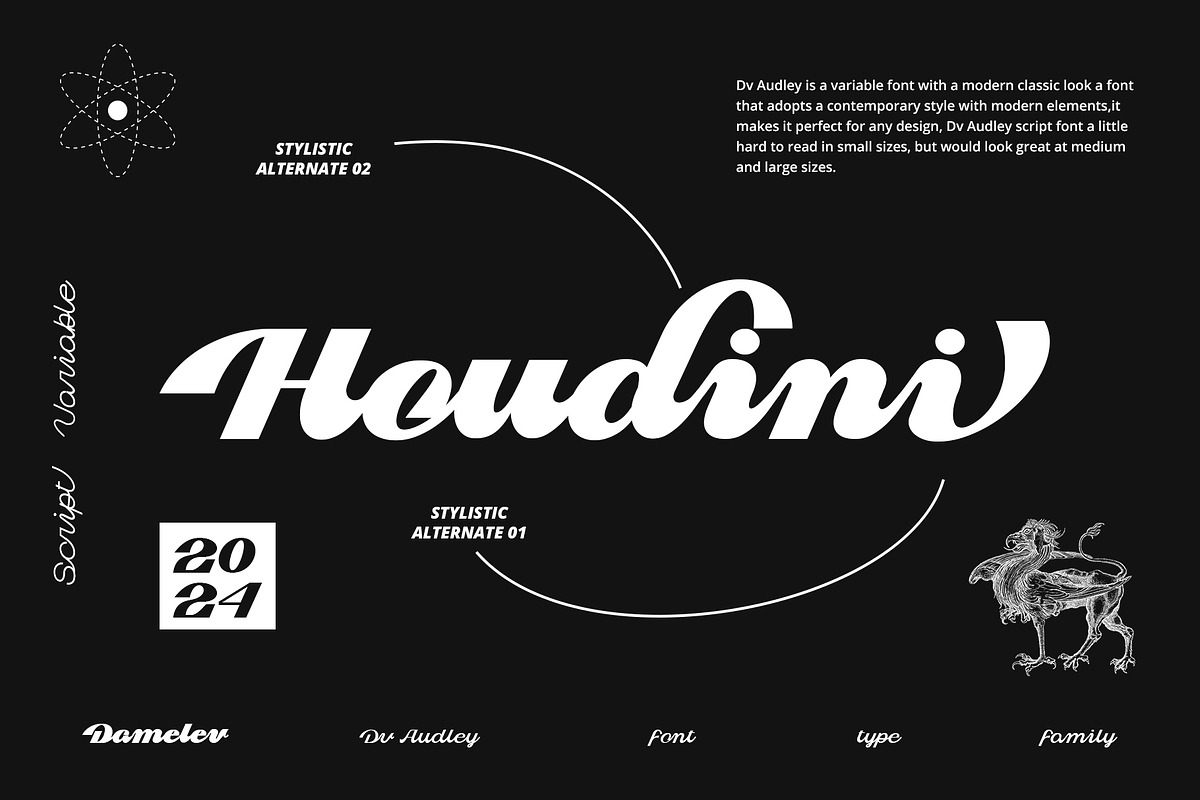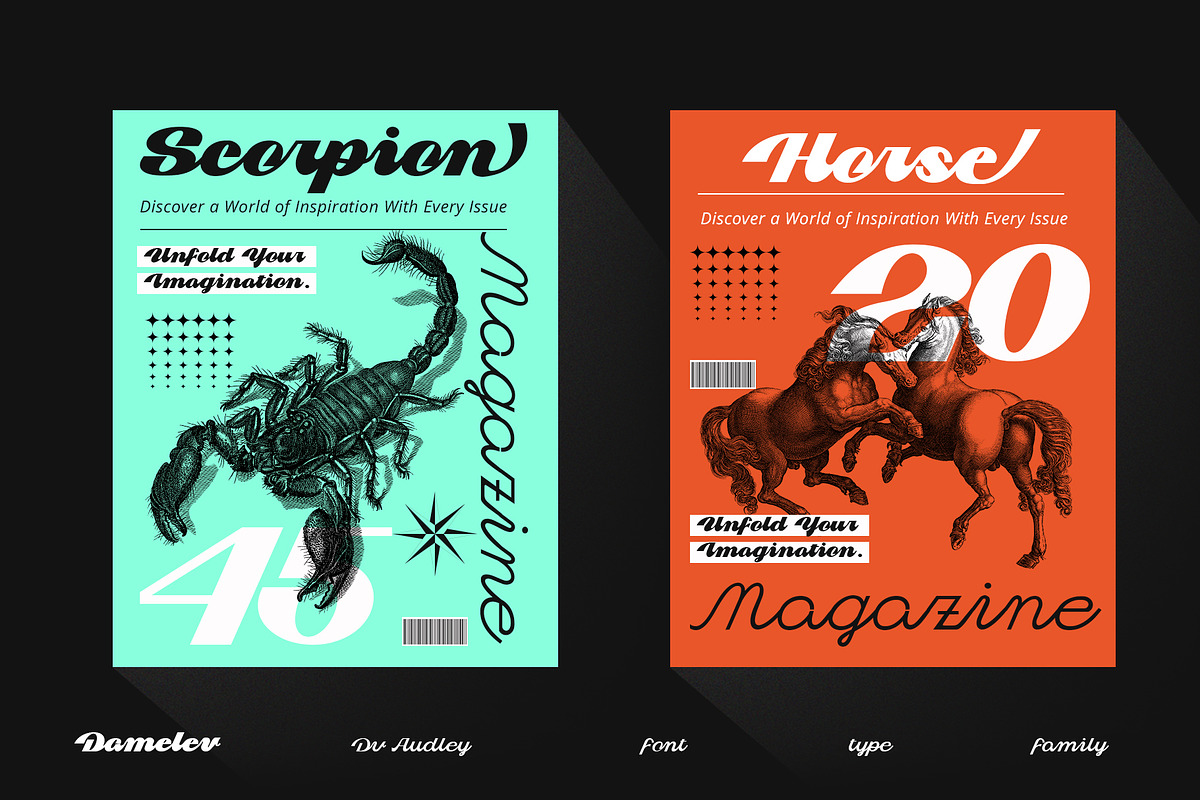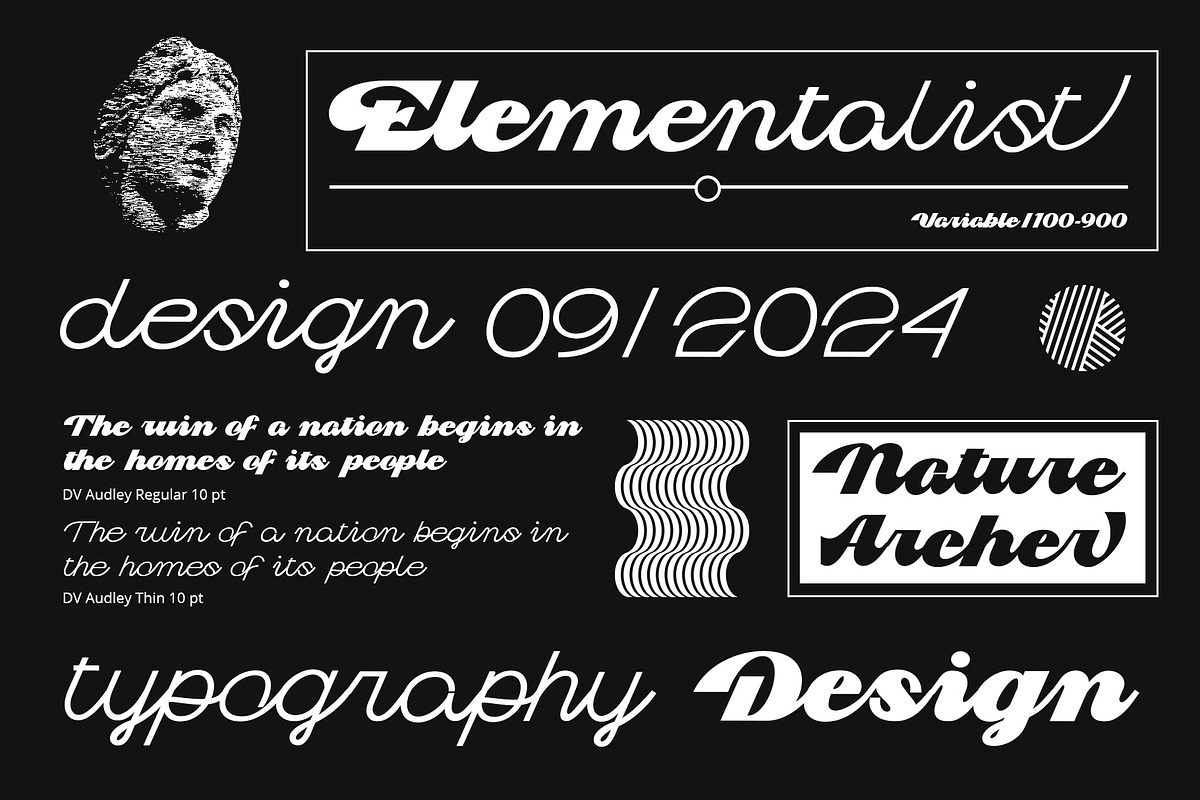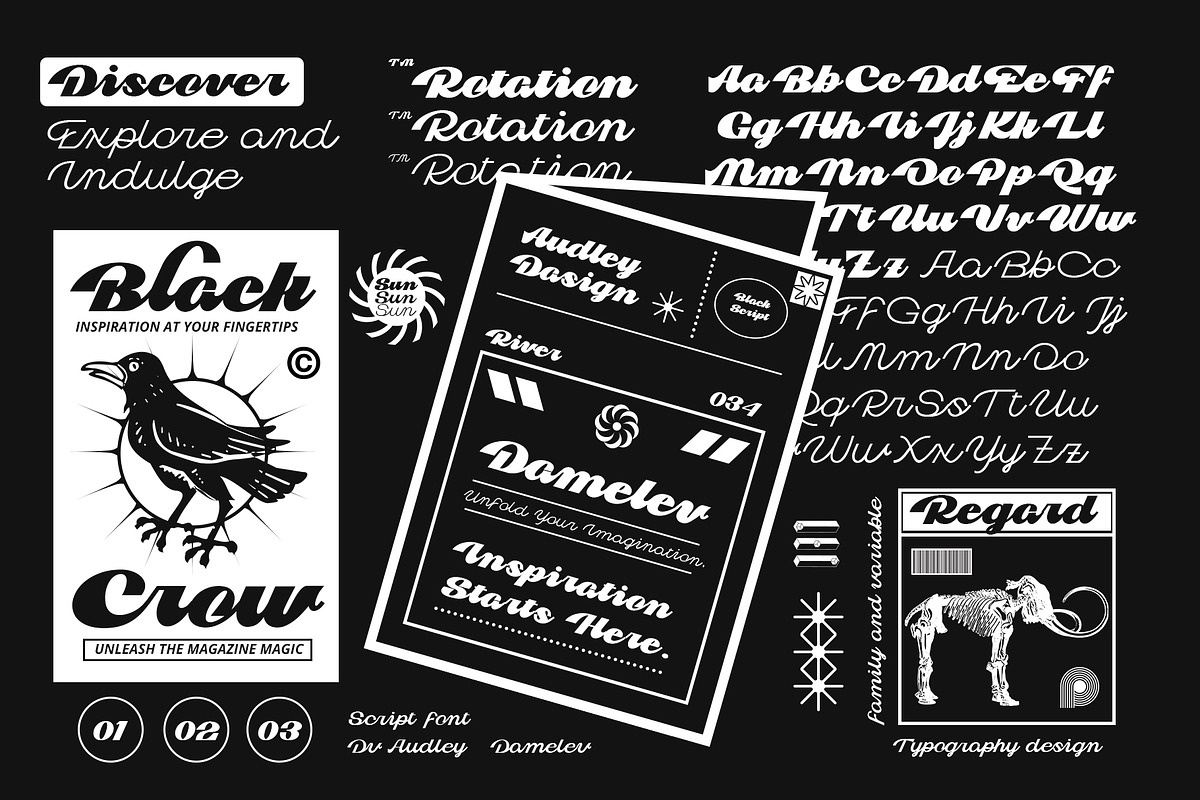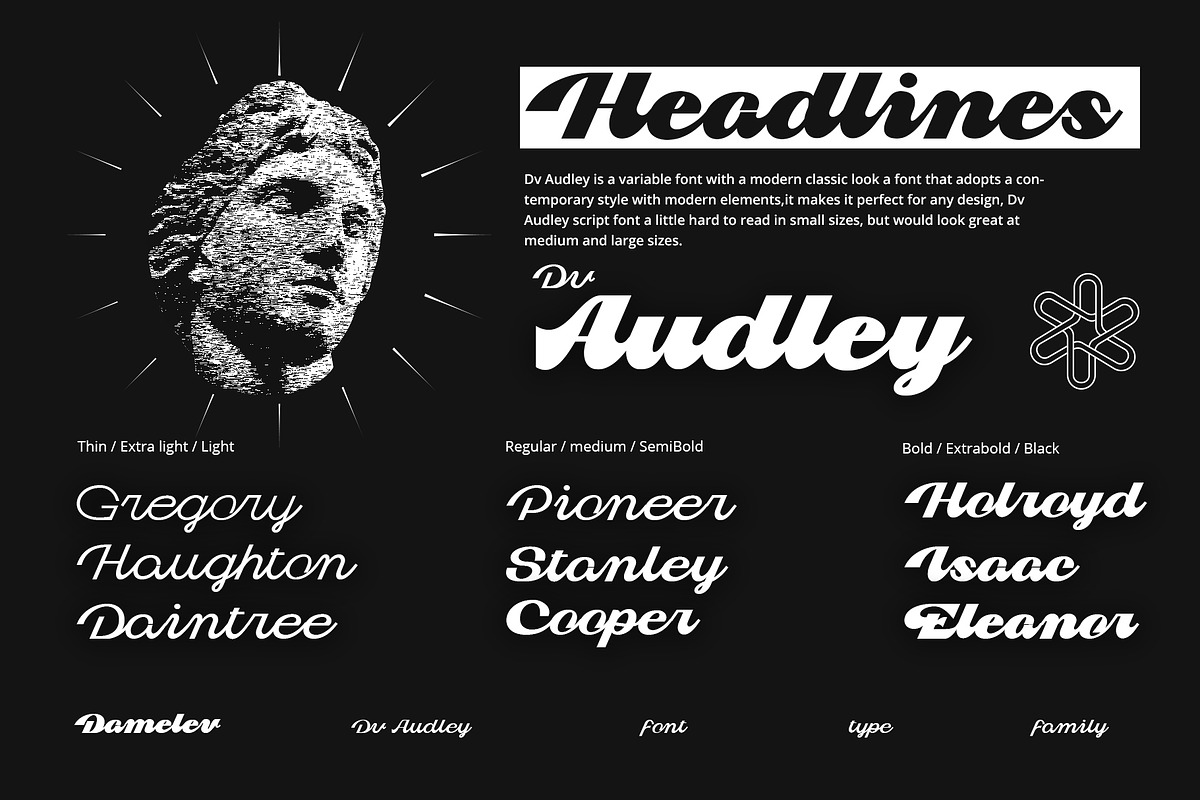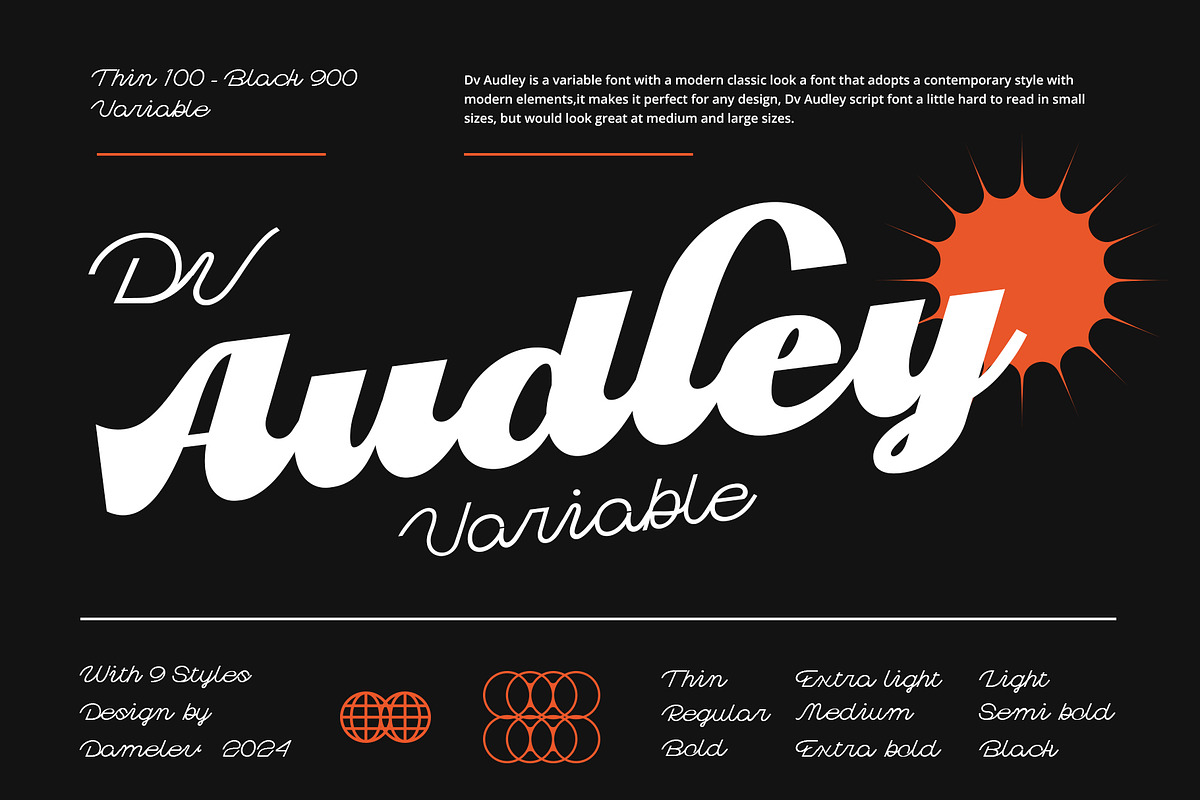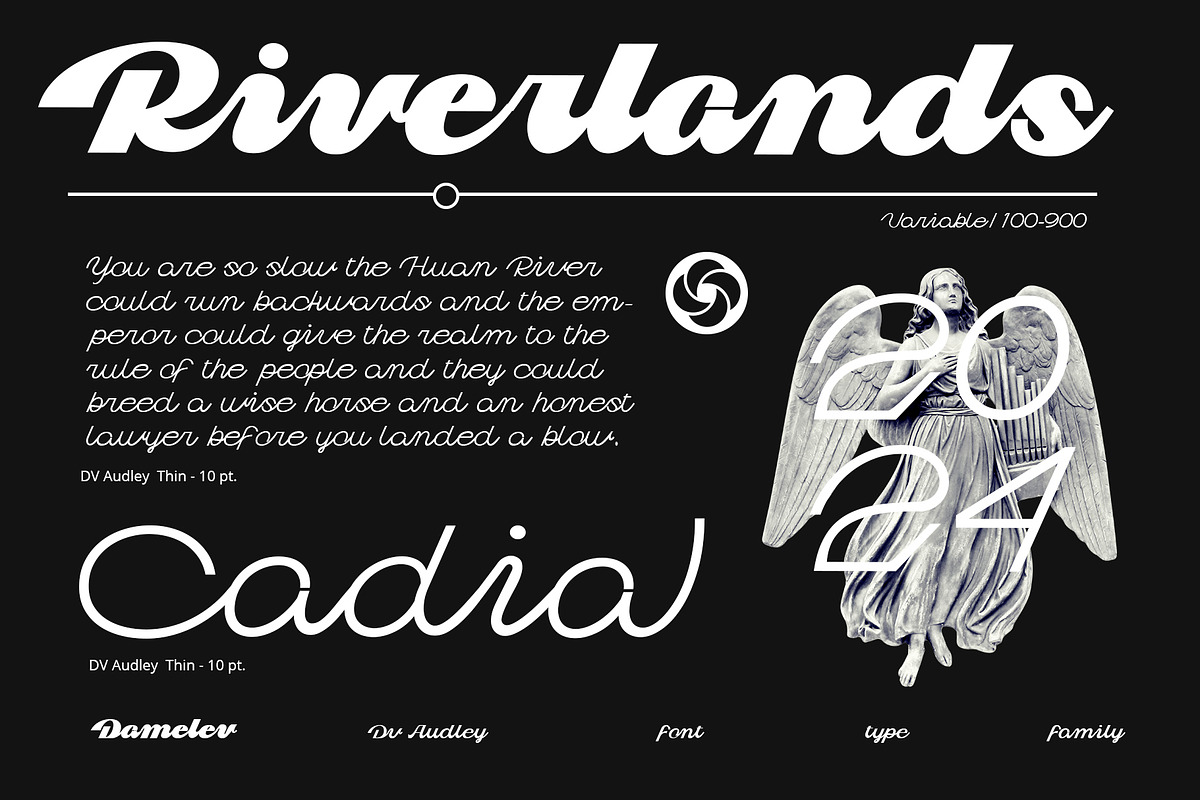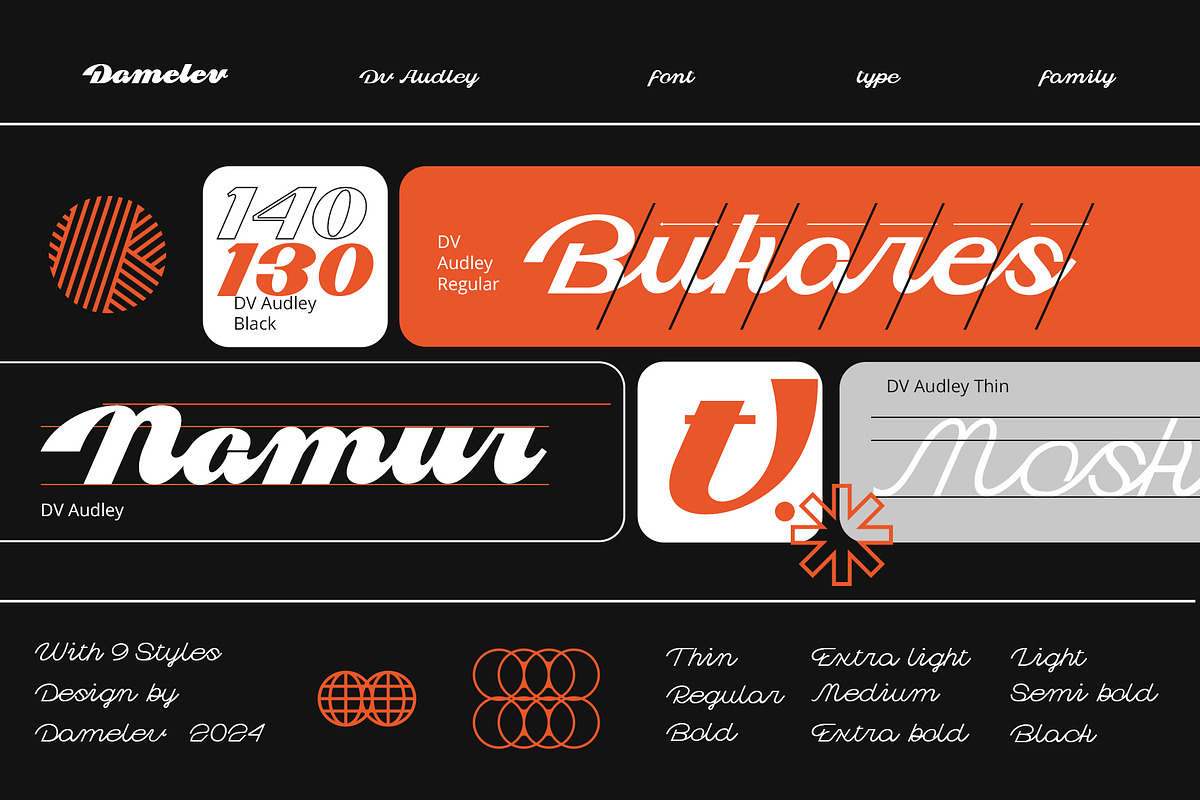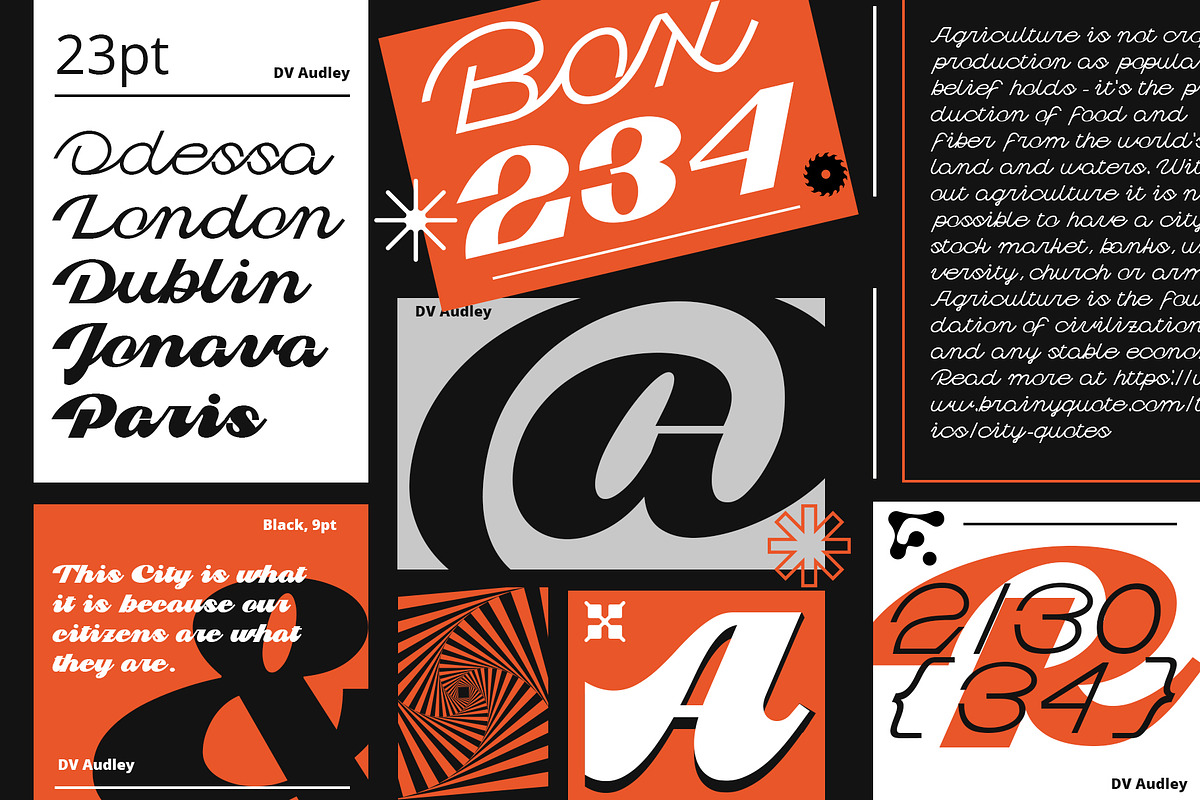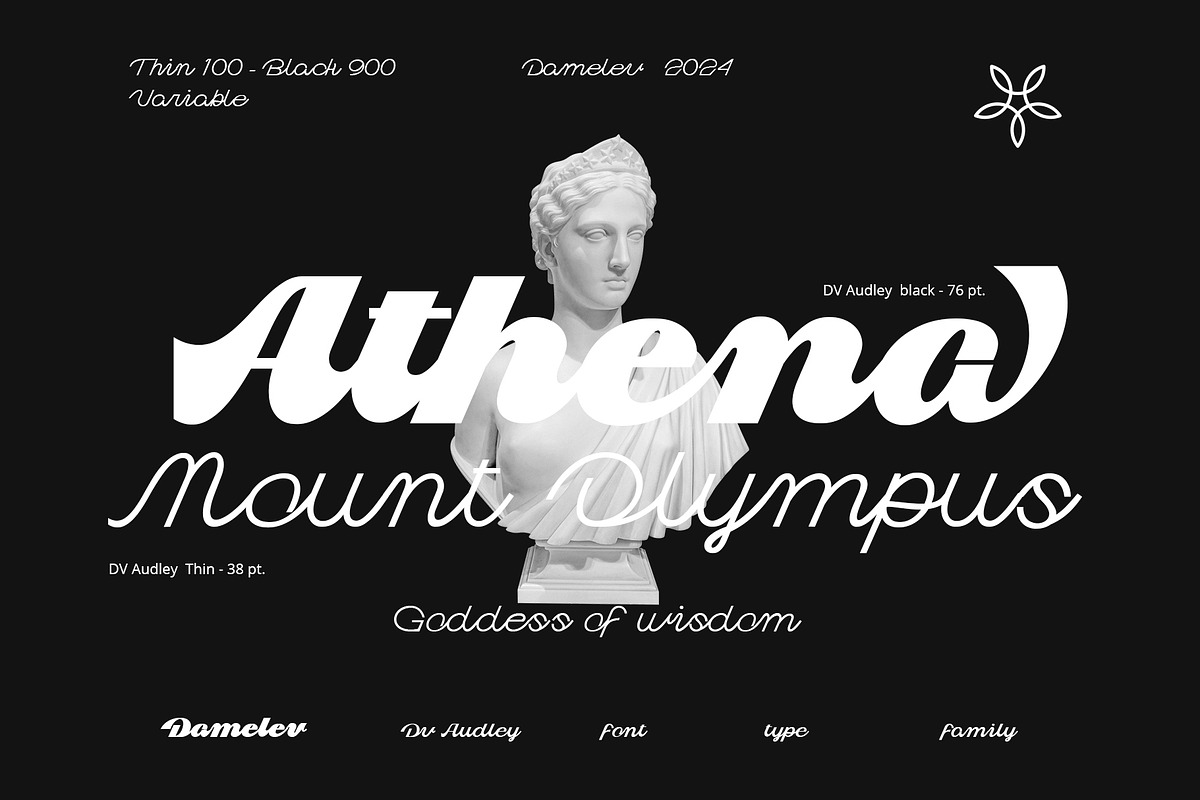
Dv Audley
Dv Audley is a variable font with a modern classic look a font that adopts a contemporary style with modern elements,it makes it perfect for any design, Dv Audley script font a little hard to read in small sizes, but would look great at medium and large sizes. The pack also includes nine different which are Thin, Extra Light, Light, Regular, Medium, Semi Bold, Bold, Extra bold, Black, and support multilingual.
It works perfectly for creative project such as logo, T-shirt / apparel, badge, invitation, packaging,headline, poster, magazine, greeting card, and wedding invitation. You can access the open type features and multilingual on mostly Adobe programs, such as Adobe Indesign, Adobe Illustrator, Adobe photoshop. etc.